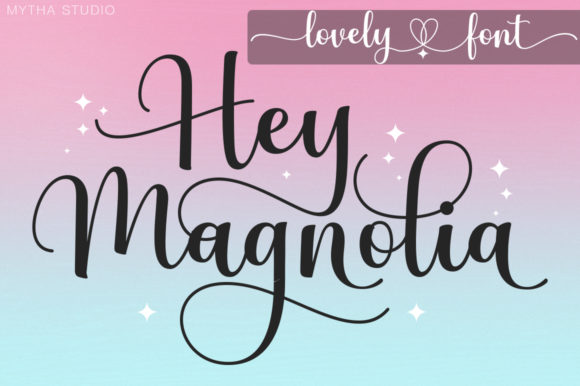
Are you looking for a font that will elevate your creative projects? Look no further than Hey Magnolia Font! This script font, created by Mytha Studio, is the perfect addition to any designer's collection.
With its unique handwritten style, Hey Magnolia Font will capture the attention of anyone who sees it. It's not just beautiful, though – it's also incredibly versatile. Whether you're designing a logo, creating a website, or making social media graphics, this font will help you take your ideas to the next level.
What sets Hey Magnolia Font apart is its PUA encoding. This means you can access all of the glyphs and swashes with ease, allowing you to fully customize your designs. And if you're looking to learn more about using this font with Cricut Design Space, it's included in the CF Class: Introduction to Cricut Design Space.